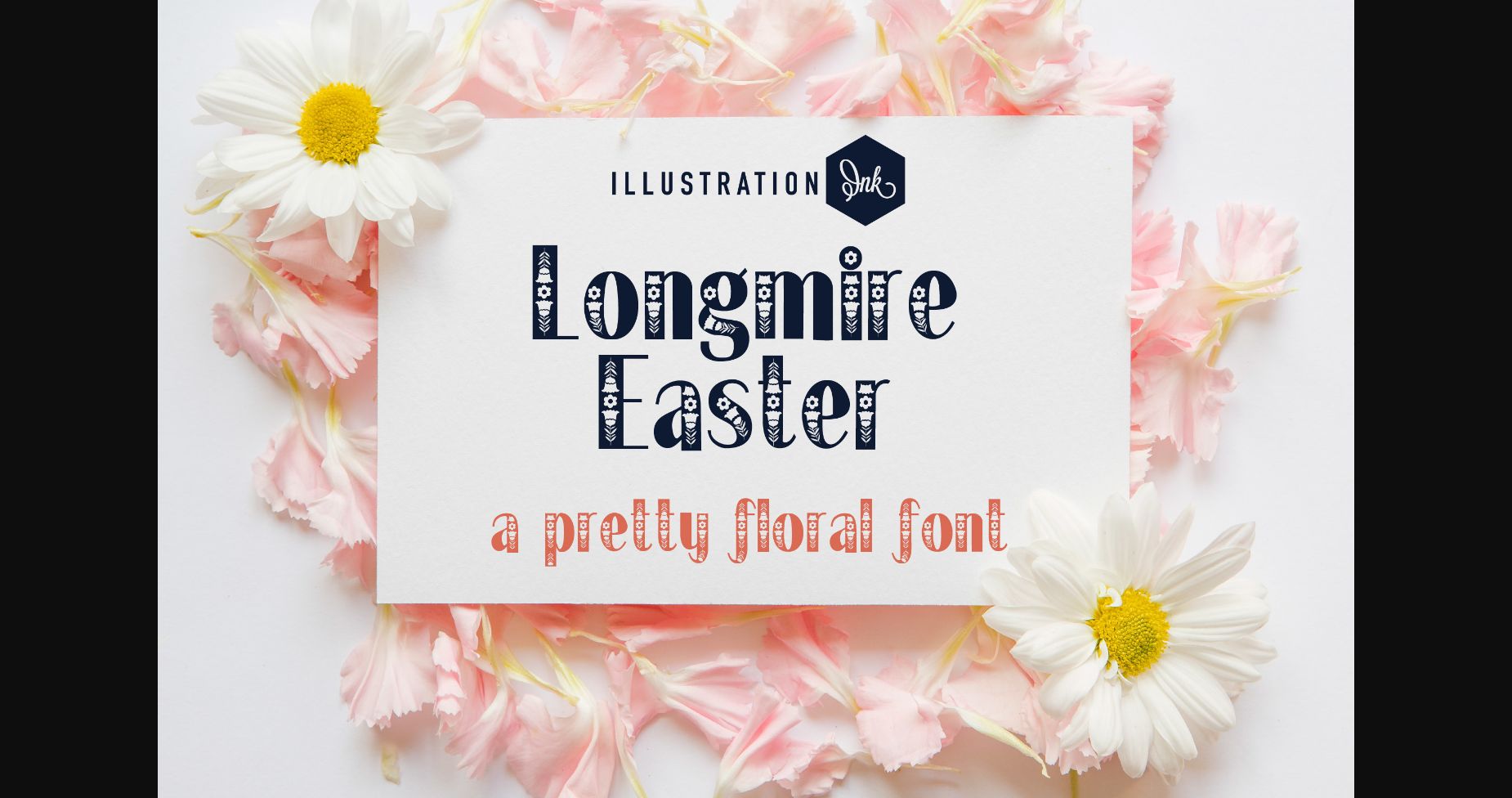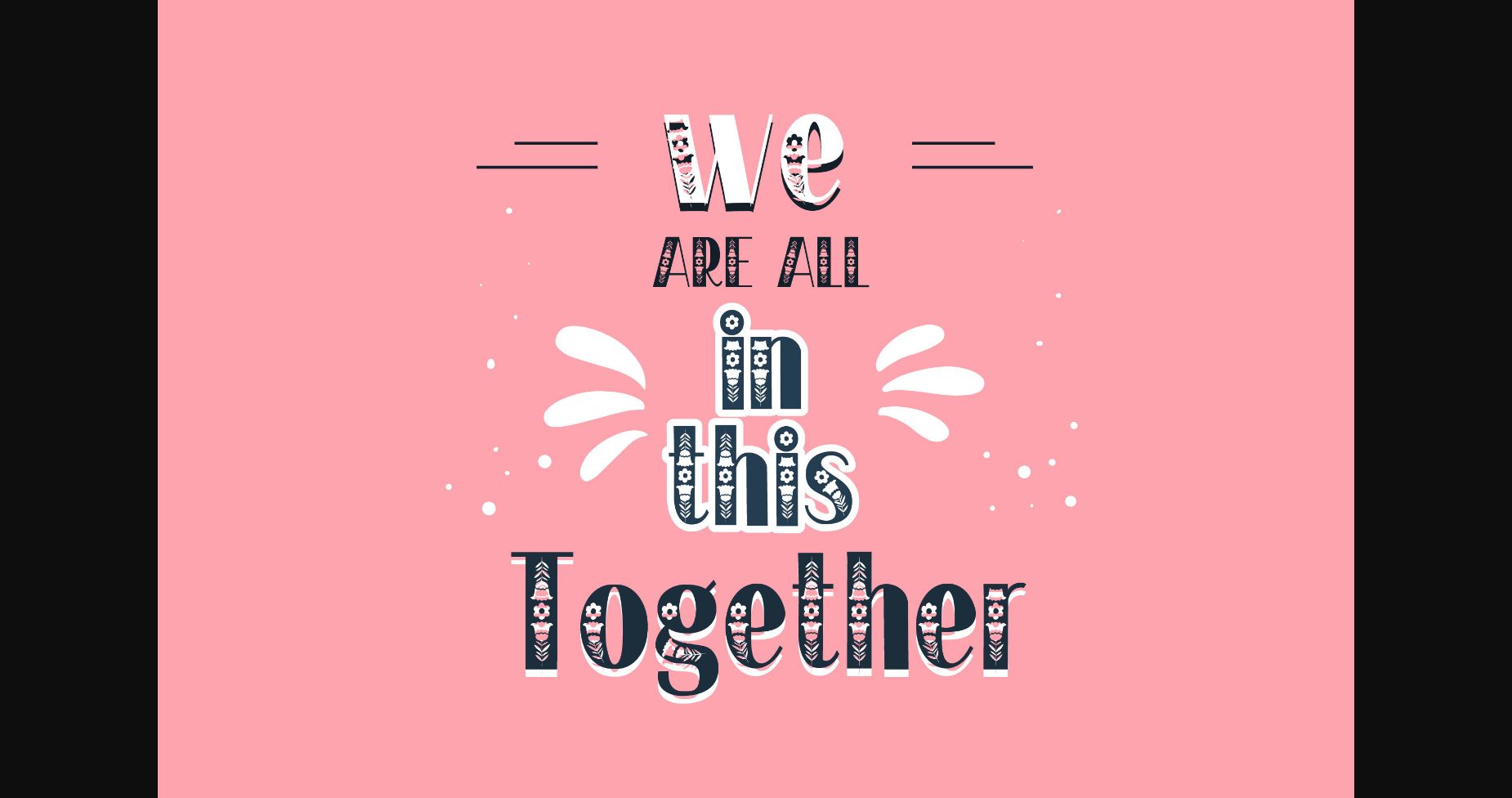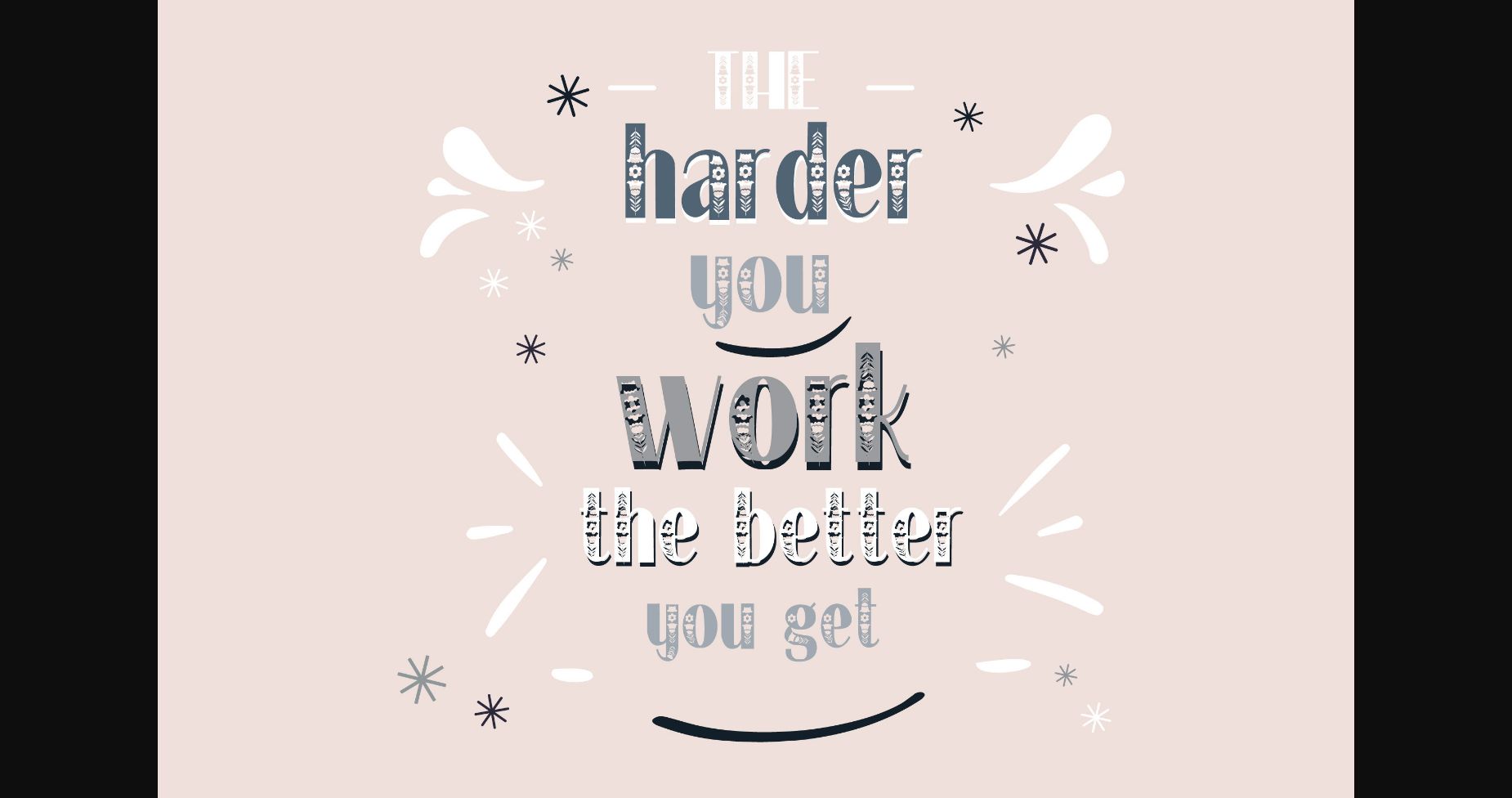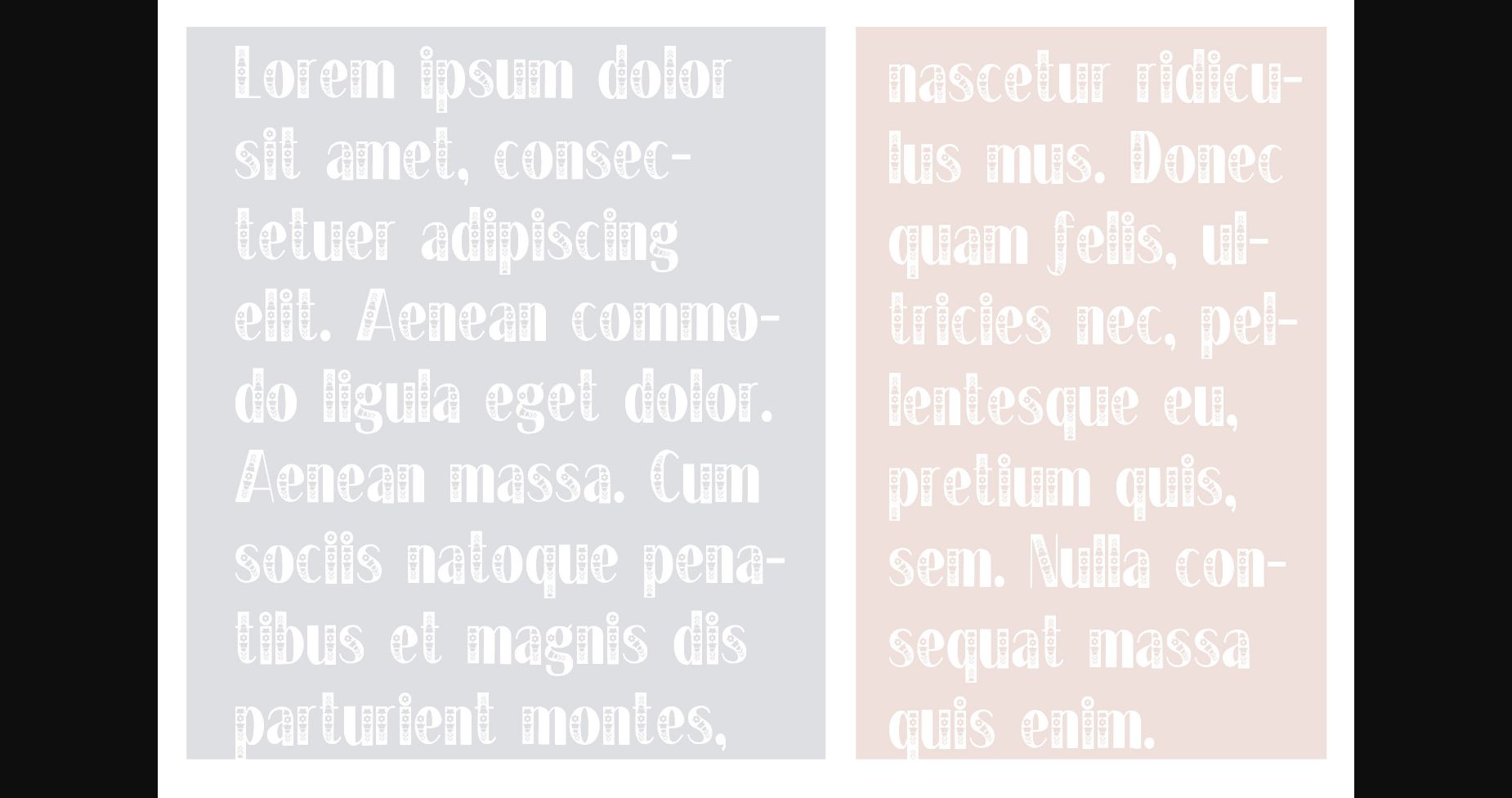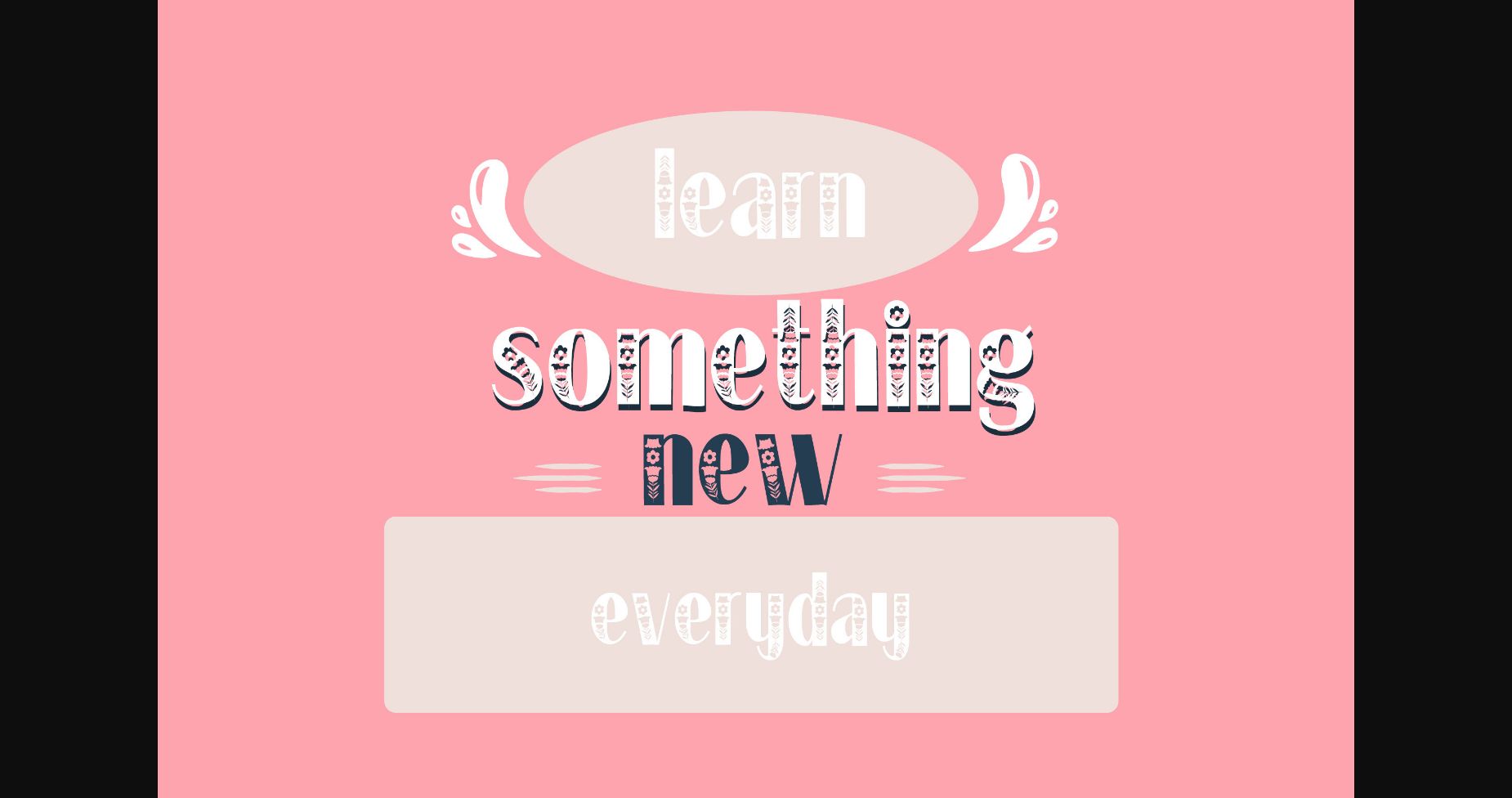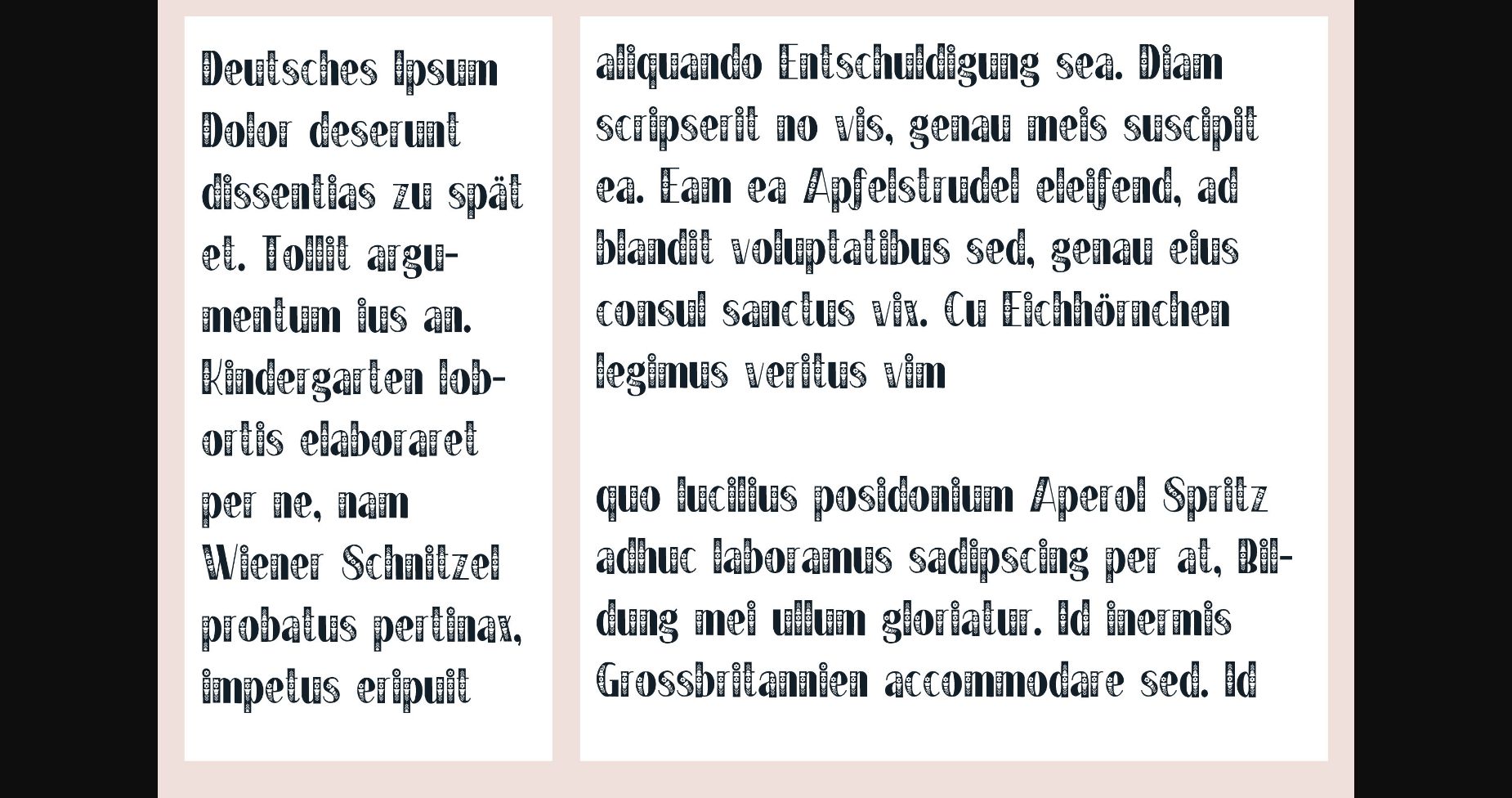
Longmire Easter Font
About Longmire Easter Font
Longmire Easter is a stylish and pretty option that’s perfect for designs celebrating the Easter season. The delicate floral accents on each letter exude elegance and charm, while still maintaining a playful and festive quality. The letters work together beautifully, creating a stunning and unforgettable look that’s sure to impress.